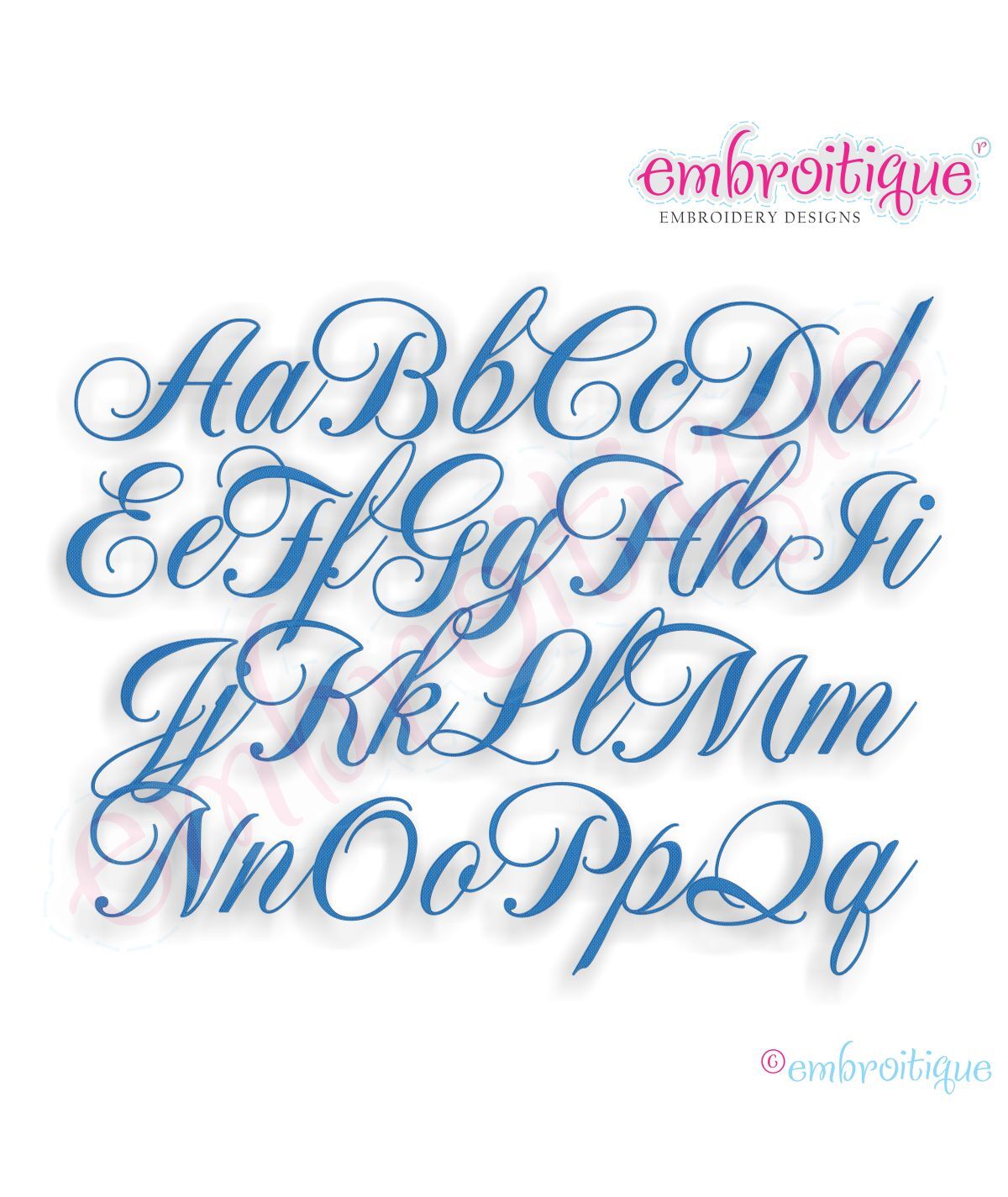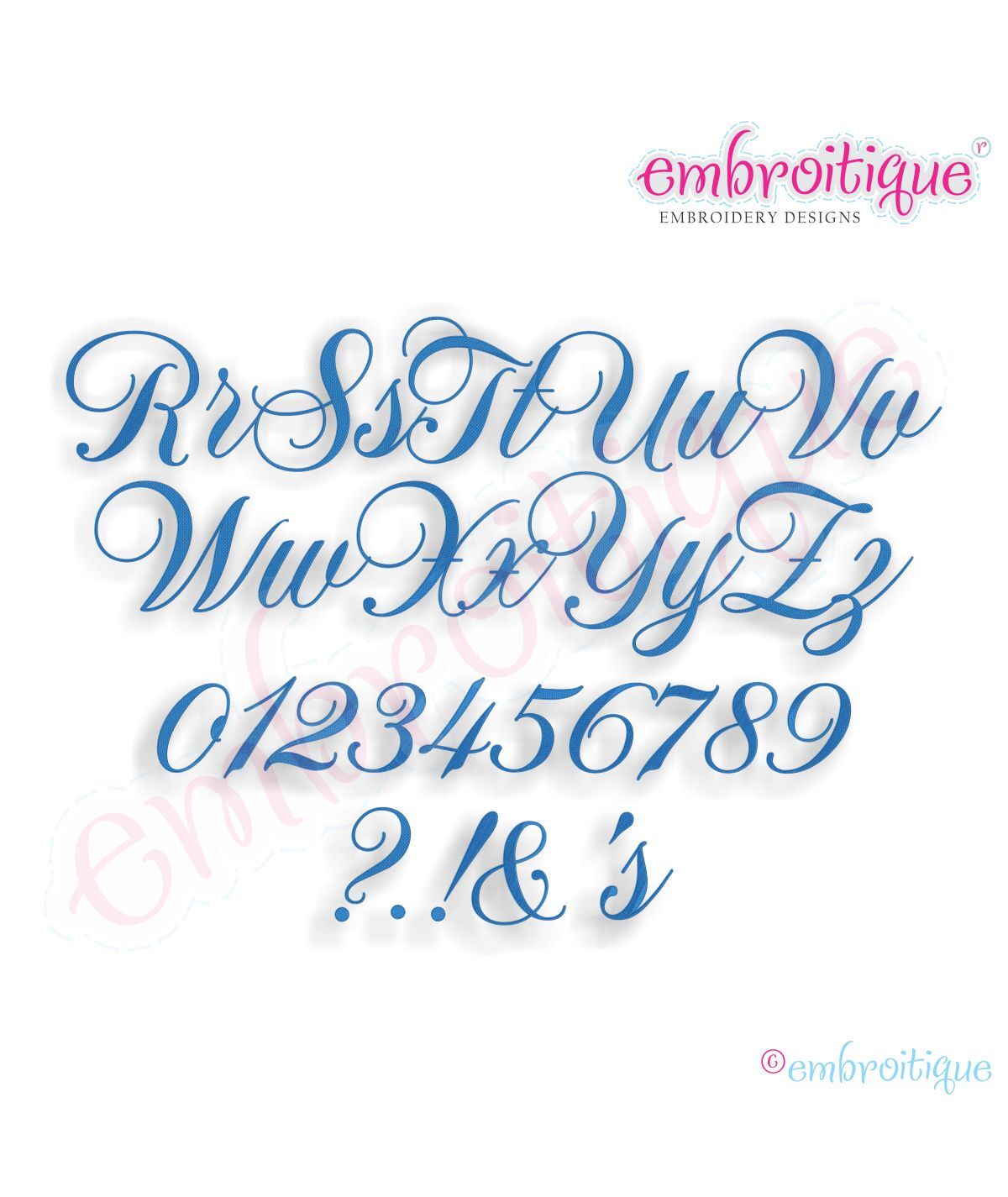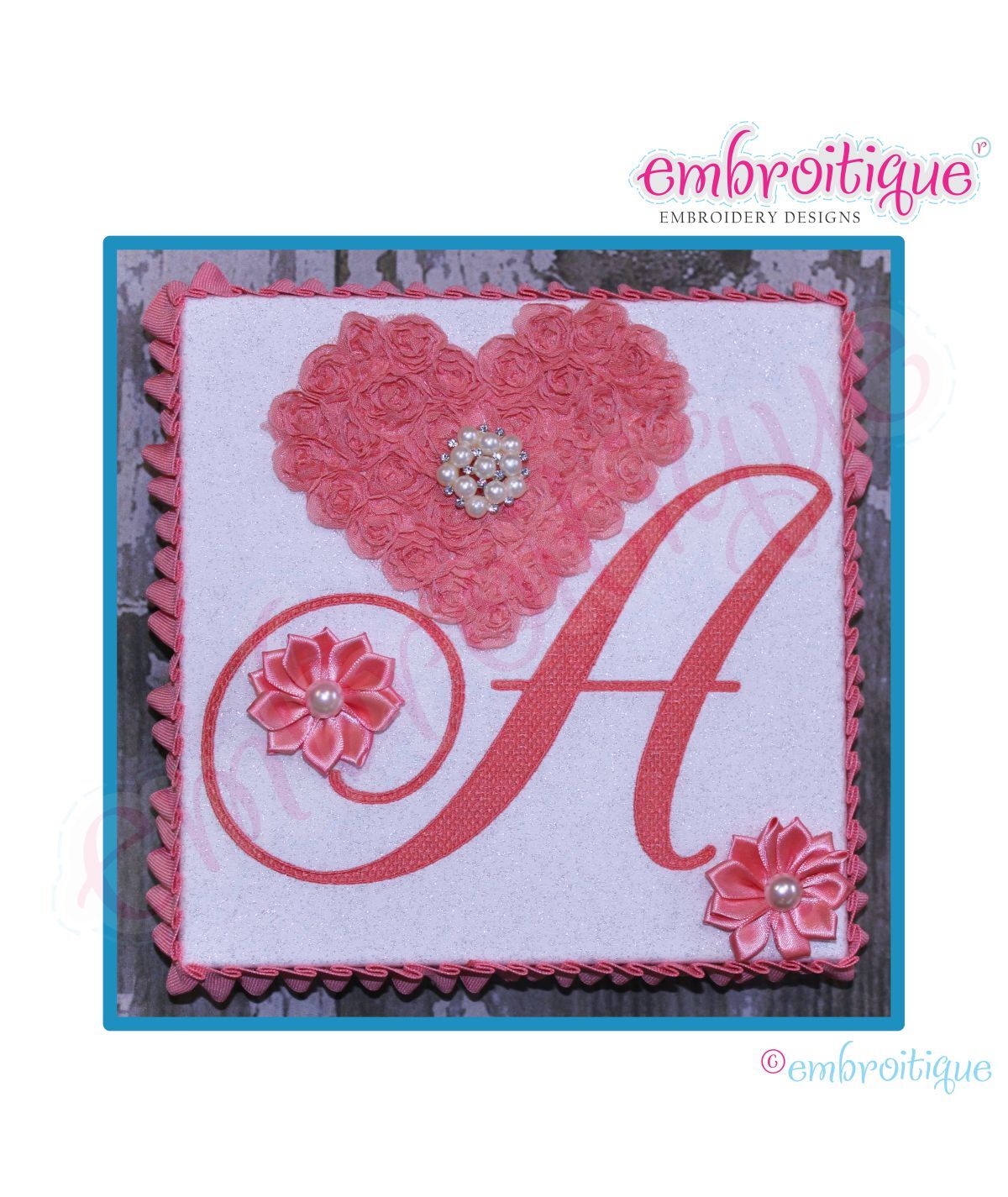
Emily Monogram Set - Large
An absolutely beautiful font that is versatile and will be a favorite 'go to' set for years to come! Â Each letter and number is an individual file that you can use to build names, monograms and more!